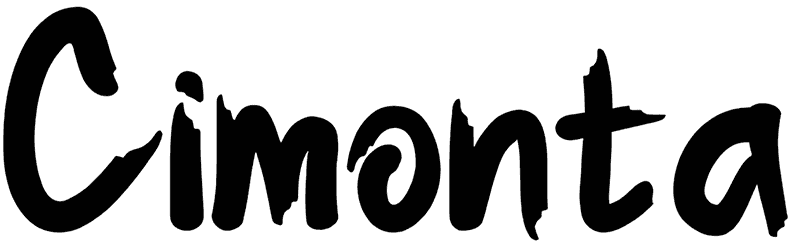
Cimonta Font
As a cute and playful brush font, this option could be a satisfying choice for your modern project. Cimonta is a realistic script font that would be a cool face for various creative designs. If you like its style, try it for your coming layouts such as flyers, postcards, packaging, or the like, and overjoy the outcome.